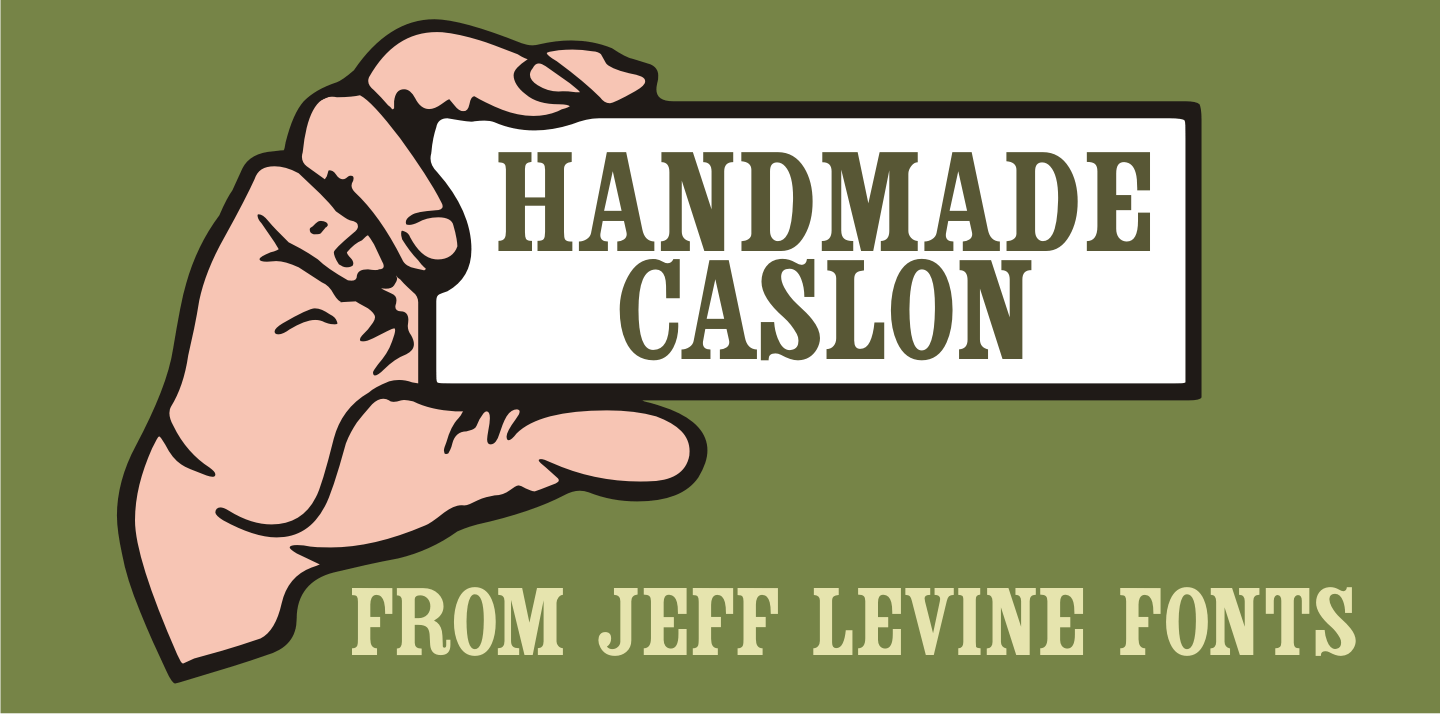
Handmade Caslon
Handmade Caslon JNL is a somewhat imperfect version of one of the many Caslon faces in use during the late 19th and early 20th centuries.
Based on vintage source material, Handmade Caslon JNL is the right typeface for projects reflecting antiquity, a hand-made look or where slightly imperfect lettering adds a bit of the 'real world” to the message.